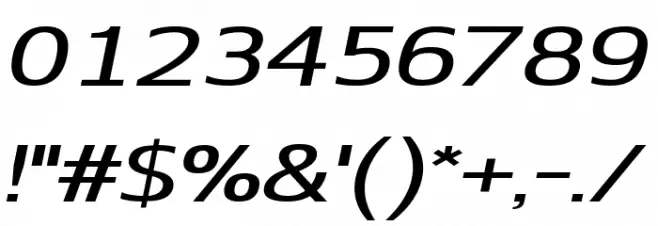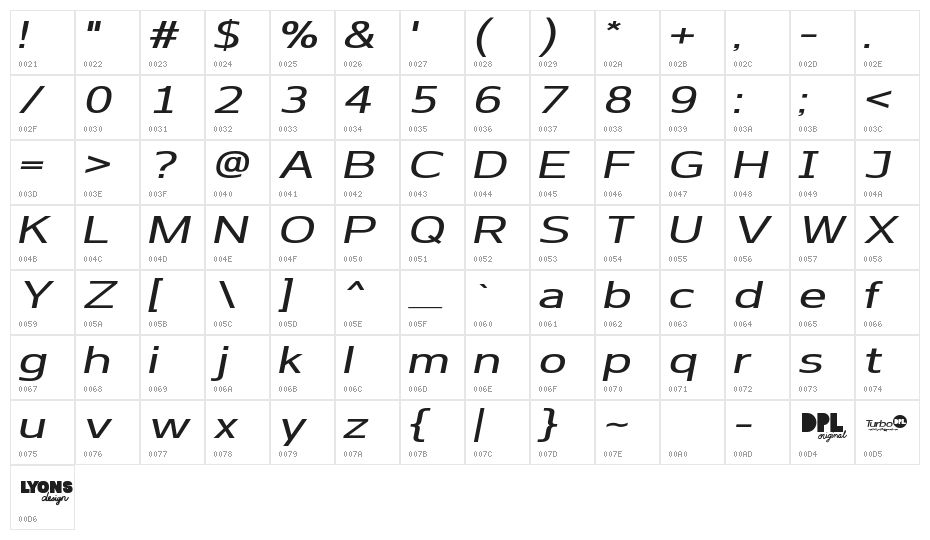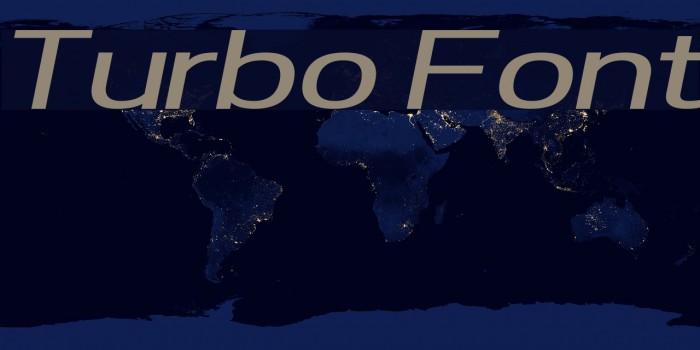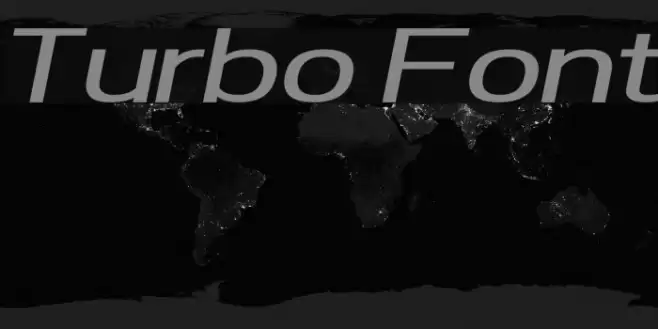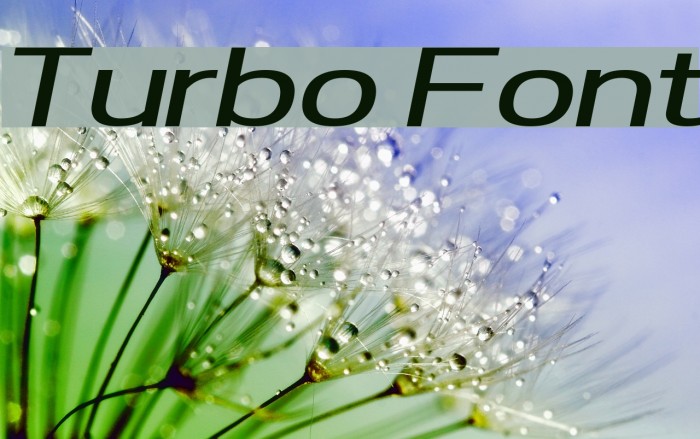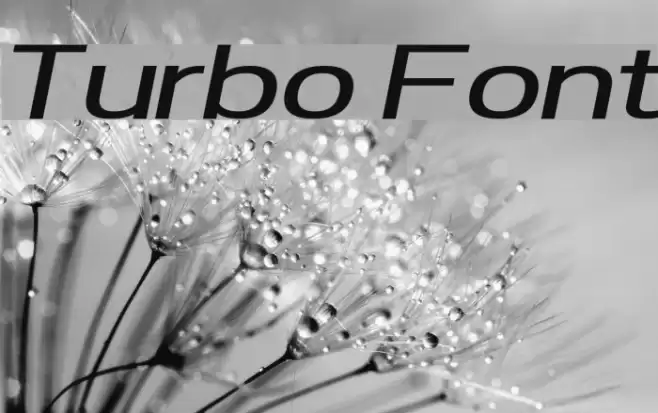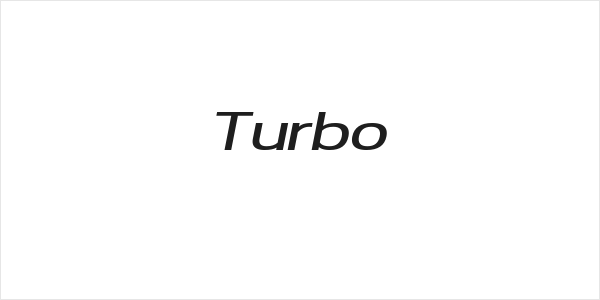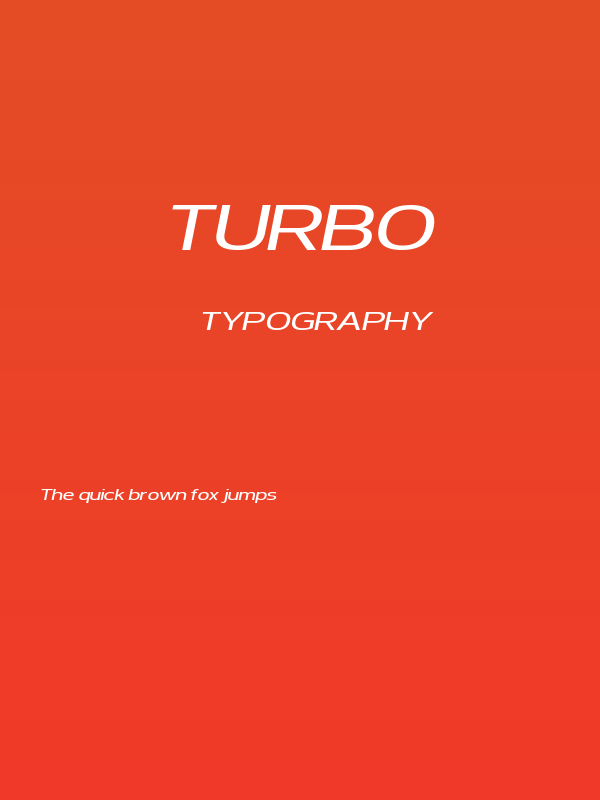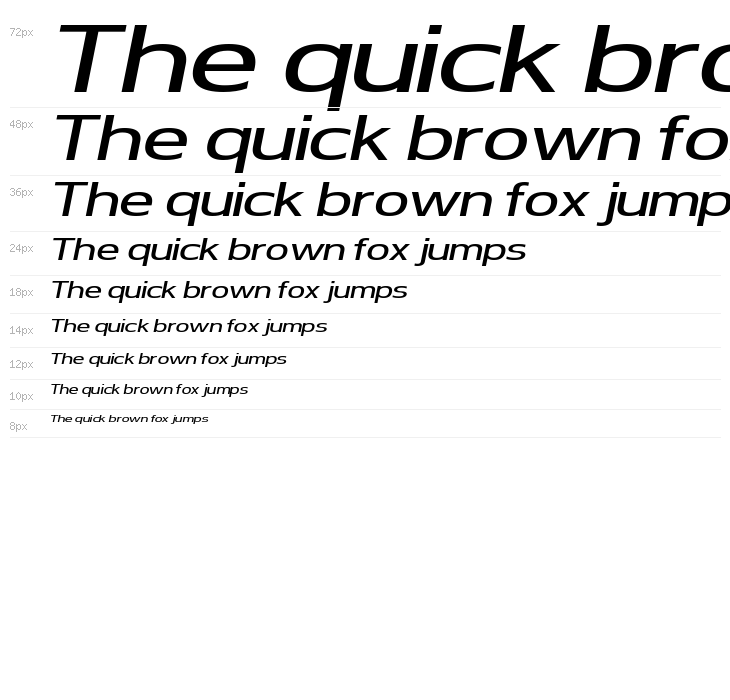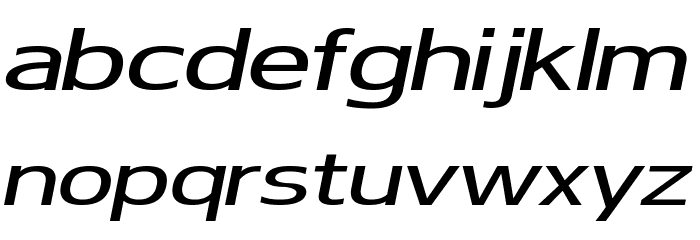
Turbo Font
Turbo Description
This font features a sleek and modern design with a slight italic slant, giving it a dynamic and forward-moving appearance. The characters are clean and well-defined, with a consistent stroke width that maintains clarity and readability. The uppercase and lowercase letters are proportionate, and the numerals are distinct, making them easily distinguishable. The special characters are designed to complement the overall style, ensuring versatility in various applications. The font's design is suitable for projects that require a contemporary and professional look.